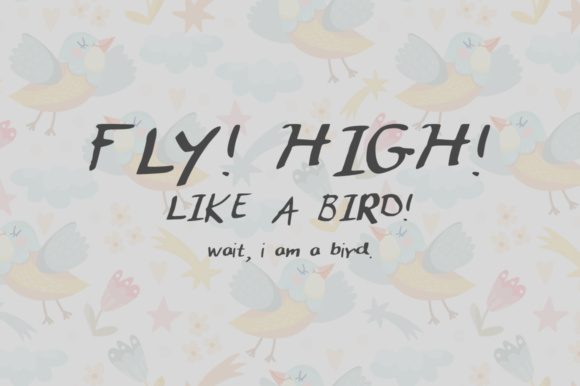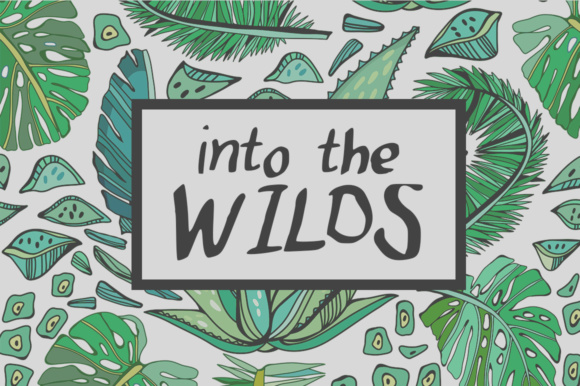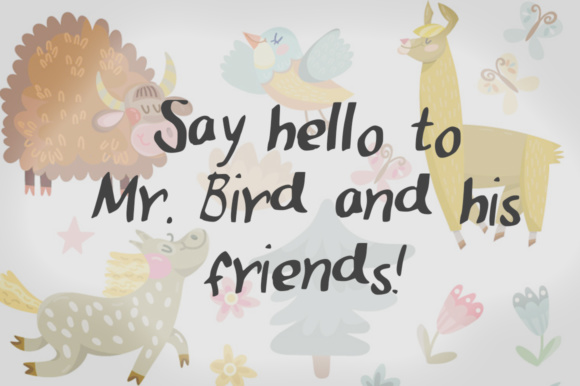
Introduction to Allison’s Marker Font
Allison’s Marker has a kid-style feeling and can be used for a wide range of projects.
Key Features of Allison’s Marker Font